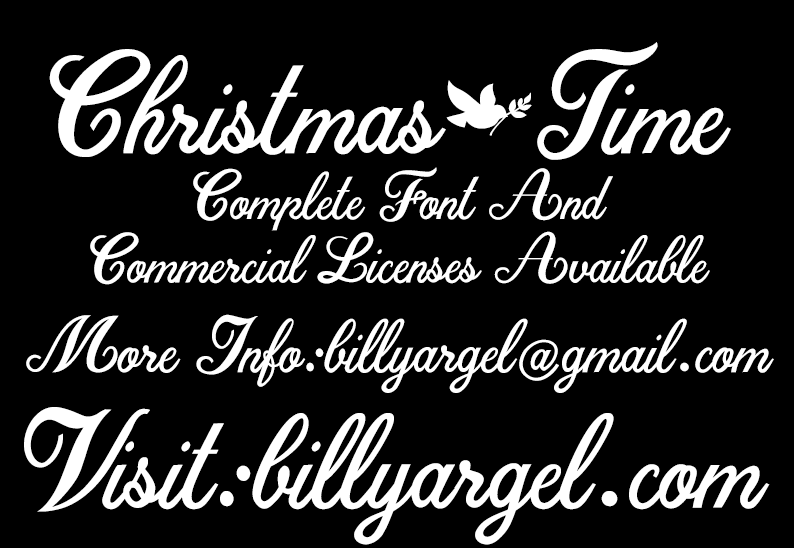
Flowing holiday script paired with bells and ornament dingbats
Christmas Time is a flowing, classic cursive script for its letters, with a bonus set of holiday dingbats mapped to the number keys - a bell, an ornament, a dove carrying an olive branch, a Christmas tree, holly, a star, a Santa sack, and candles. It reads as timeless and traditional rather than trendy.
Use the script for handwritten-style Christmas cards and invitations, and pull in the dingbats to add classic holiday icons to the same design. Free for personal use.